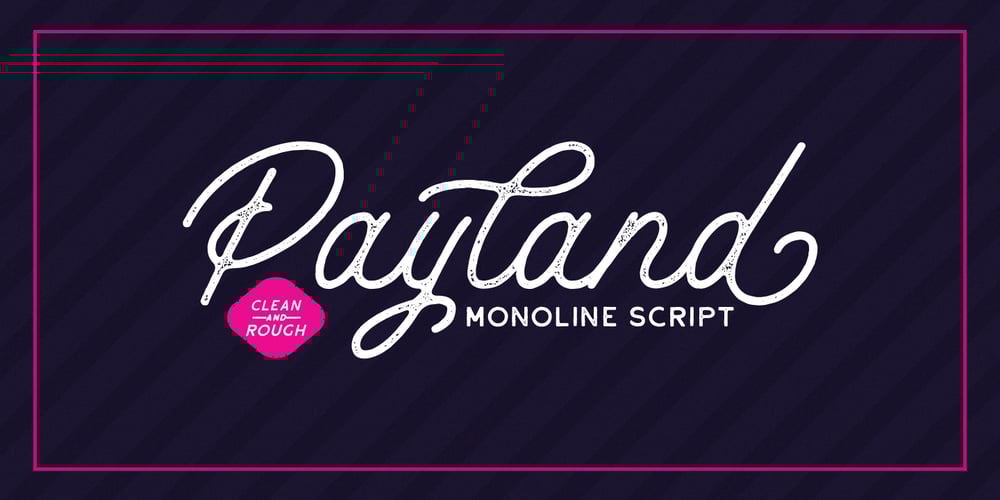
Payland Font Family was designed by Gustian Agung Asprilla and published by Rillatype. Payland contains 2 styles and family package options. Payland is a monoline script and is perfect for logotype or quotes that need a monoline style font. Payland contains 2 styles: Regular, if you’re big fan of simplicity and clean design, and Rough one for you who want a little bit of vintage touch on your design. On top of that, this font has 11 stylistic alternates! If you have any question, please feel free to hit us on rillatype@gmail.comThank you!